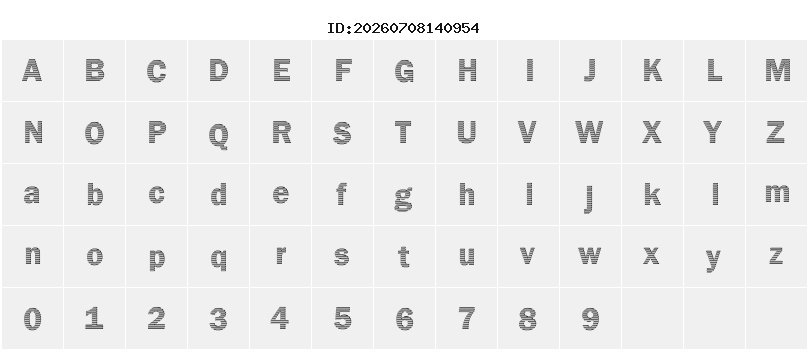
About DTCFranklinGotM07.ttf
DTCFranklinGotM07.ttf is a modern, elegant sans-serif font designed for ultimate readability and visual harmony. Perfect for branding, headlines, web design, and print materials.